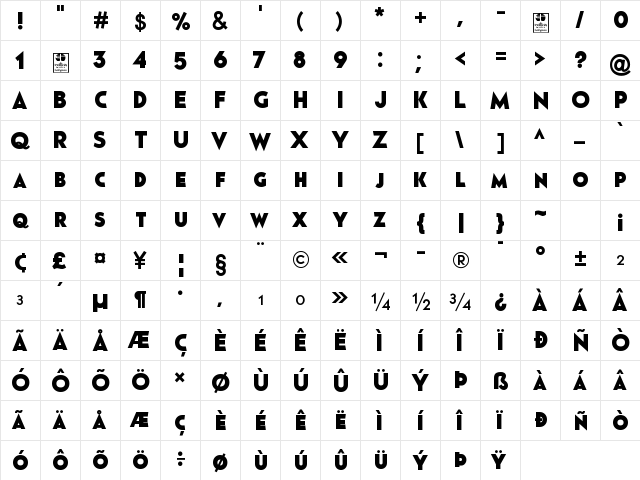
Pages Grotesque Black Demo Regular
Design Context for Pages Grotesque Black Demo Typeface
Pages Grotesque Black Demo takes a measured approach to typography — its balanced proportions and neutral character make it a reliable workhorse for both digital and print work.